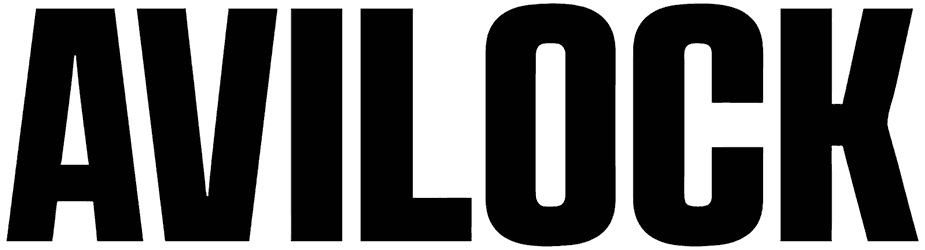
Avilock Font
When your design needs a letterform to become bold, modest, and modern, items are always used. This sans-serif font with its basic characters is a good option for an action movie poster or a car magazine design, even without lowercase letters. Whatever your design is, try the Avilock font and give a professional visual to its words.
Avilock is powerful bold display font Perfect for typography purposes that require a strong but subtle identity.